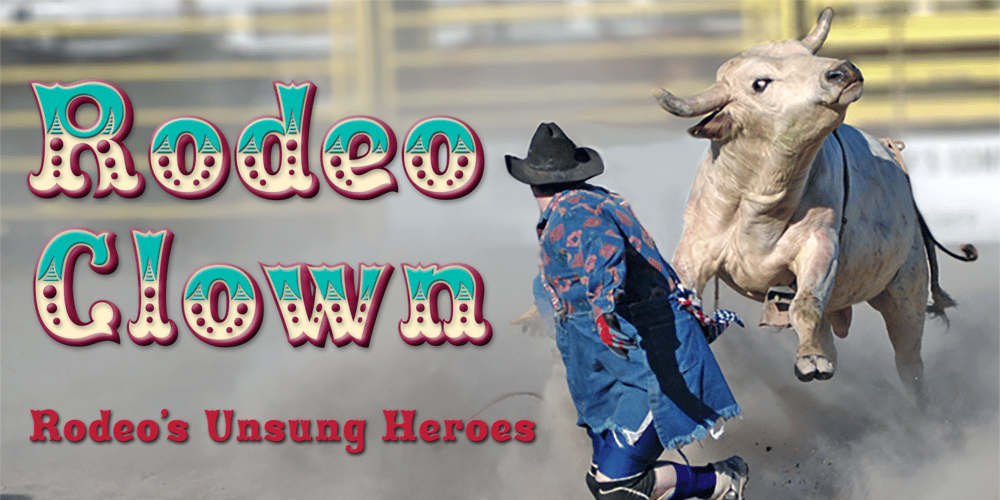
Rodeo Clown Font Family was designed by Michael Hagemann and published by FontMesa. Rodeo Clown contains 4 styles and family package options. Rodeo Clown is a revival of an old classic font that you may have known under the name of Carnival. The Rodeo Clown family includes Fill fonts that you may layer behind the letters to add color or set to white so any background image doesn’t show through the letters.The half fill should be layered on top to change the color of the top inlay design.The fill font for Rodeo Clown may also work as a stand alone black weight.In our sales images you’ll see a sample of the fill font being used, we’ve intentionally offset the fill font to give it a misaligned printed look which was common to see with fill fonts in the 1800’s